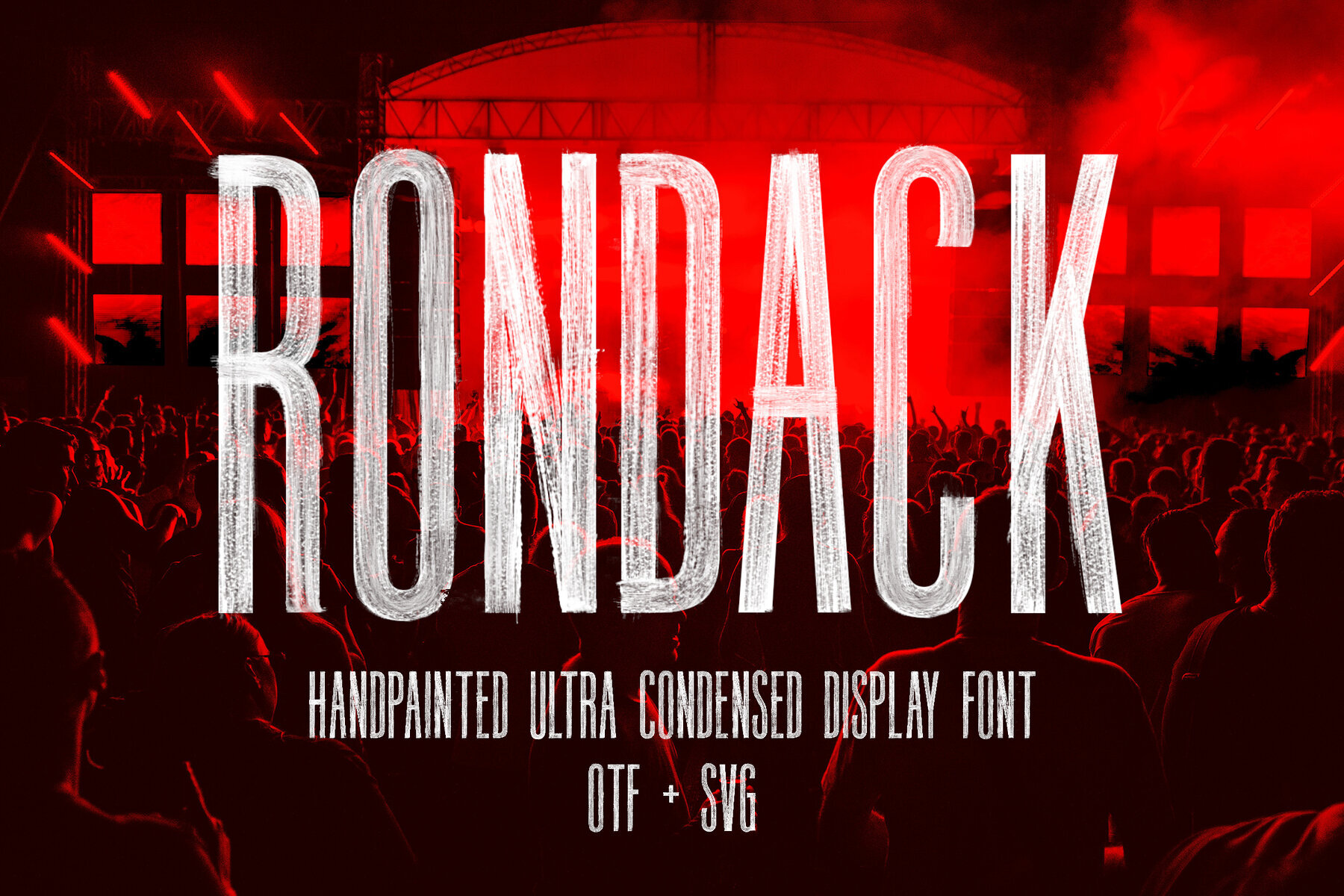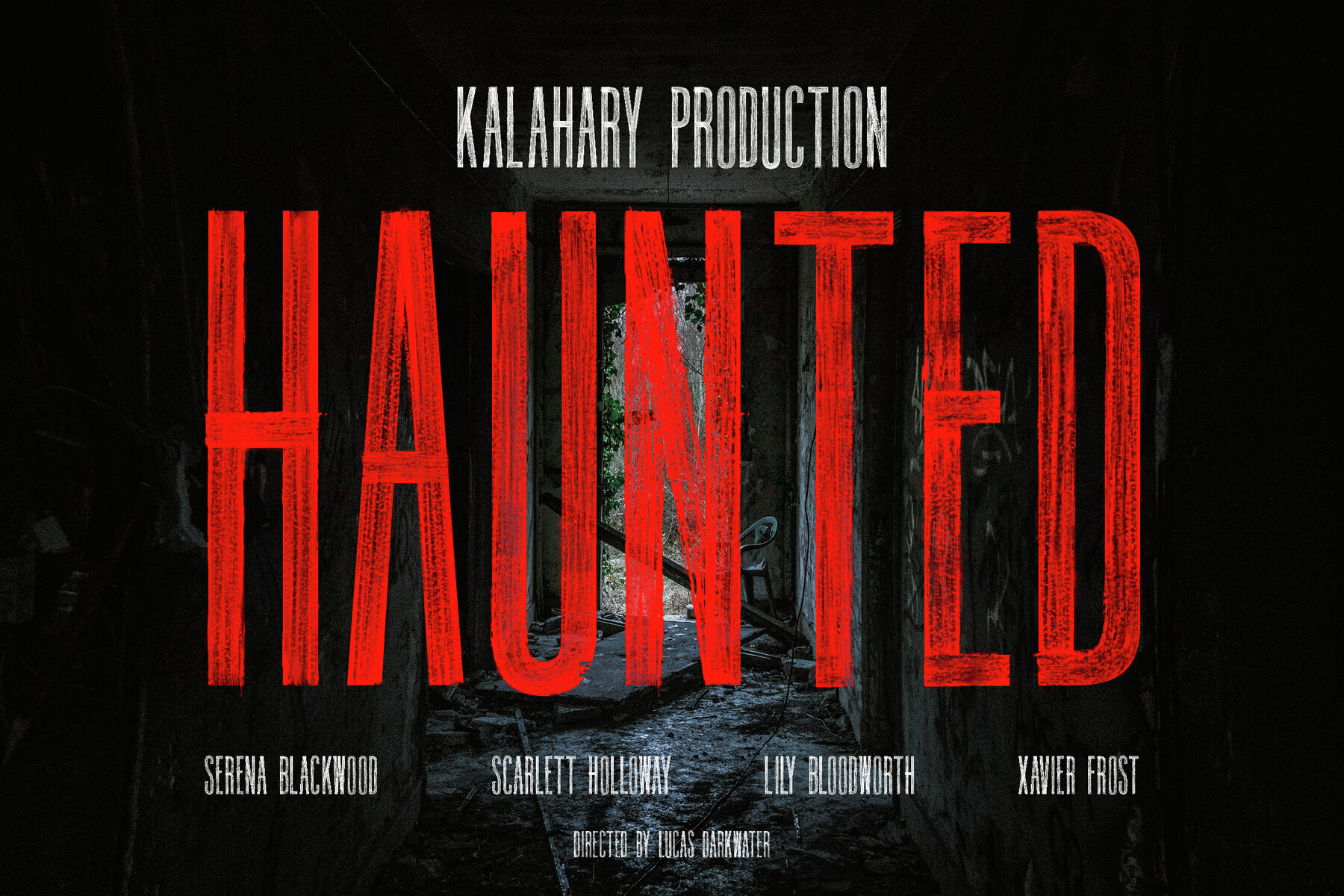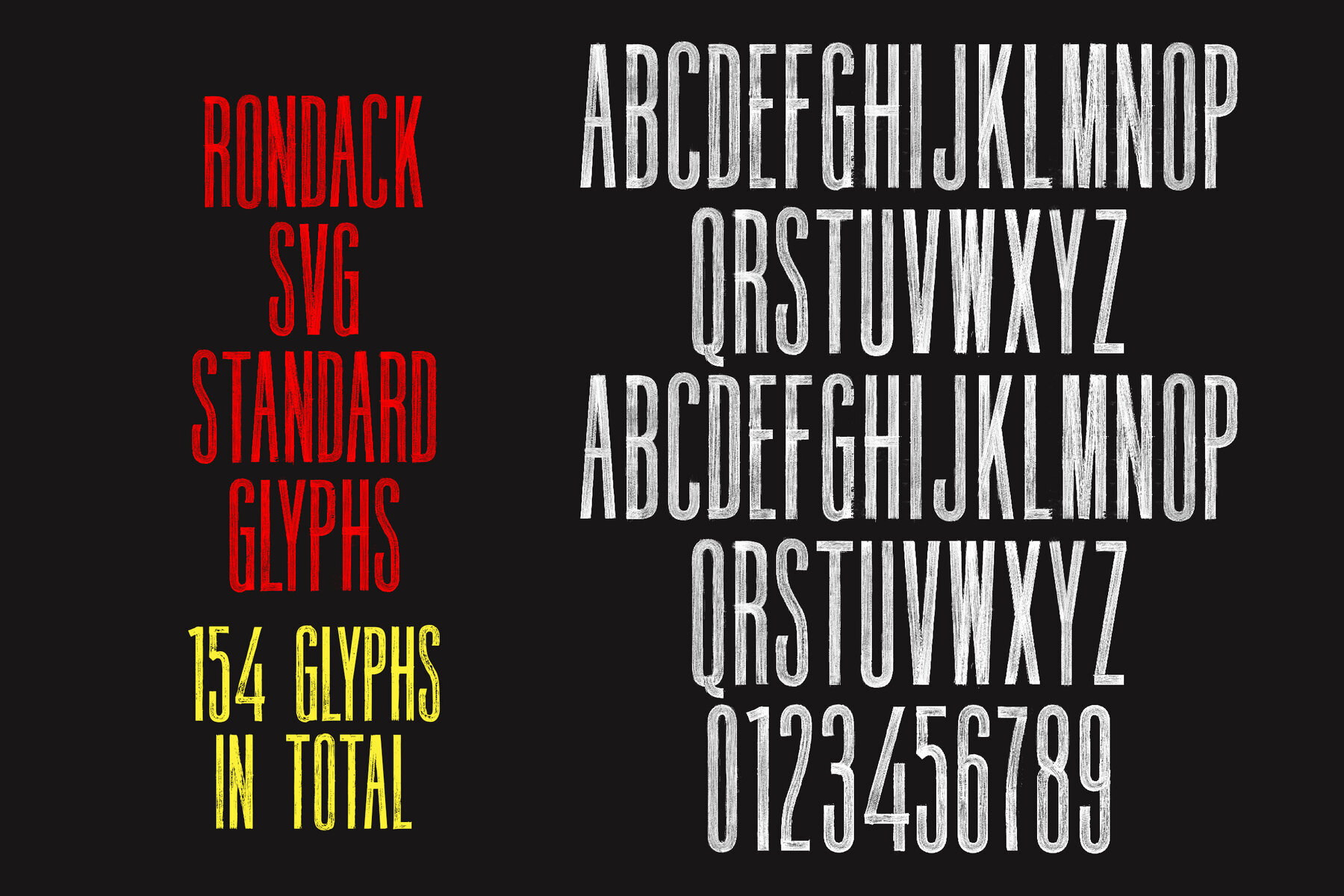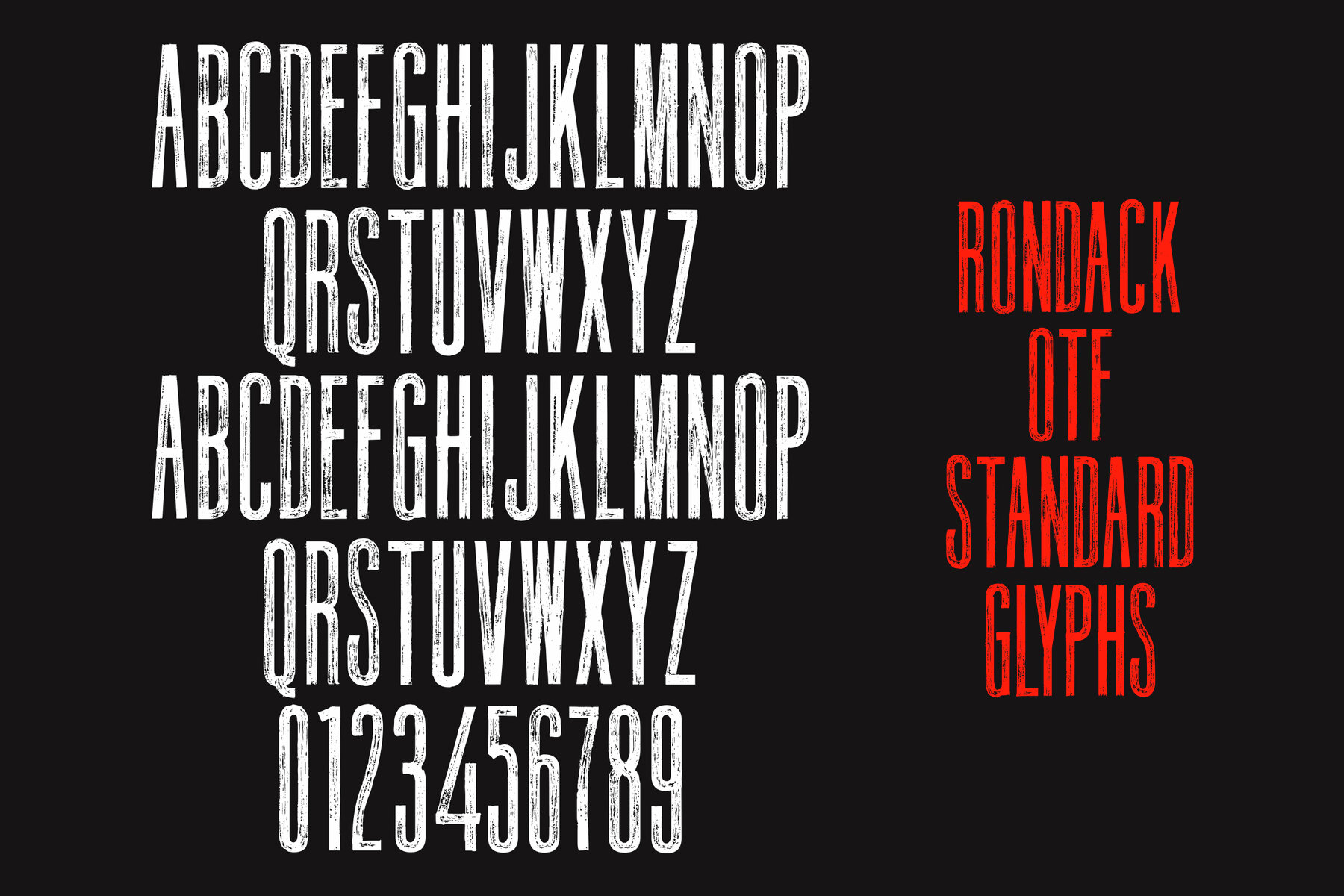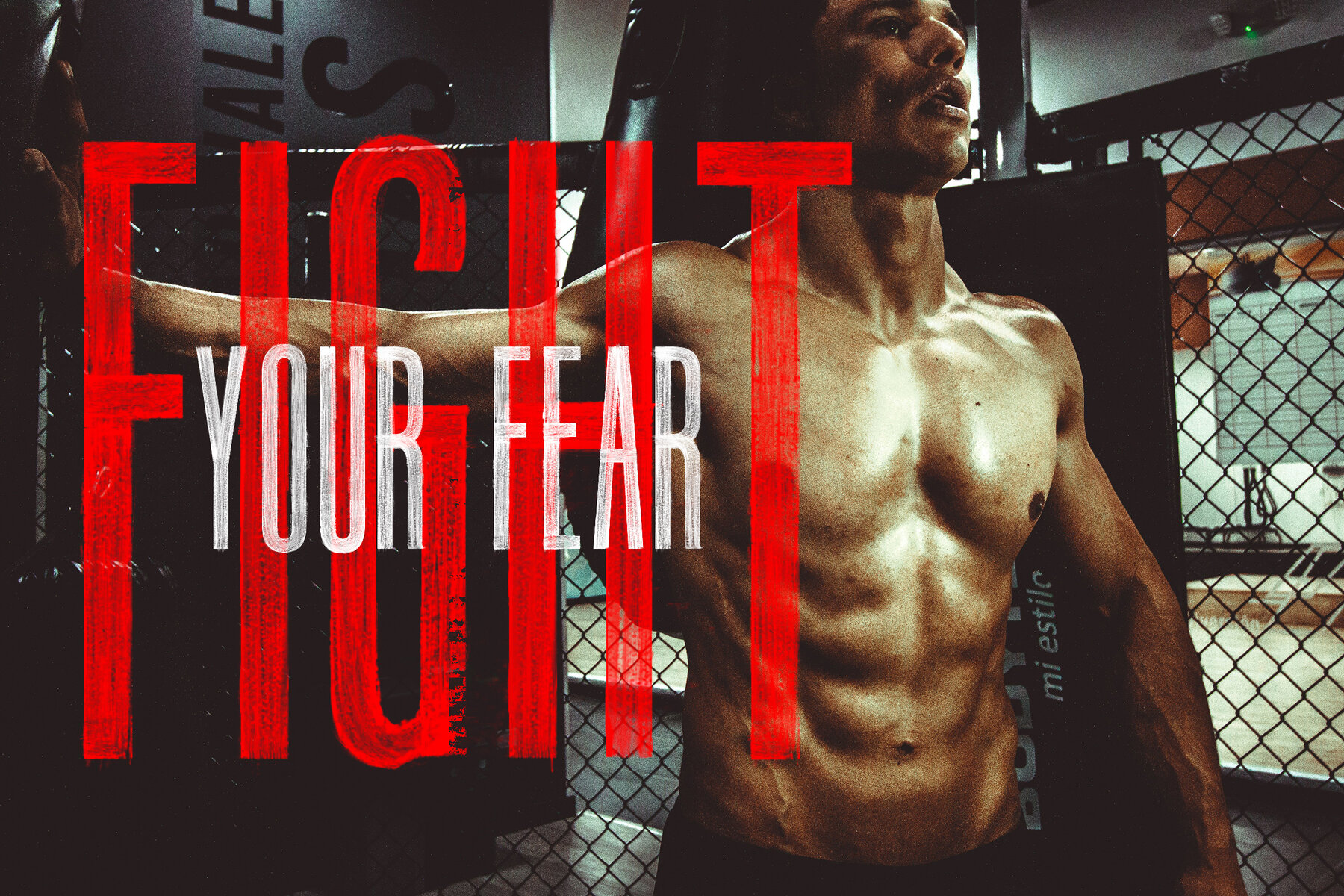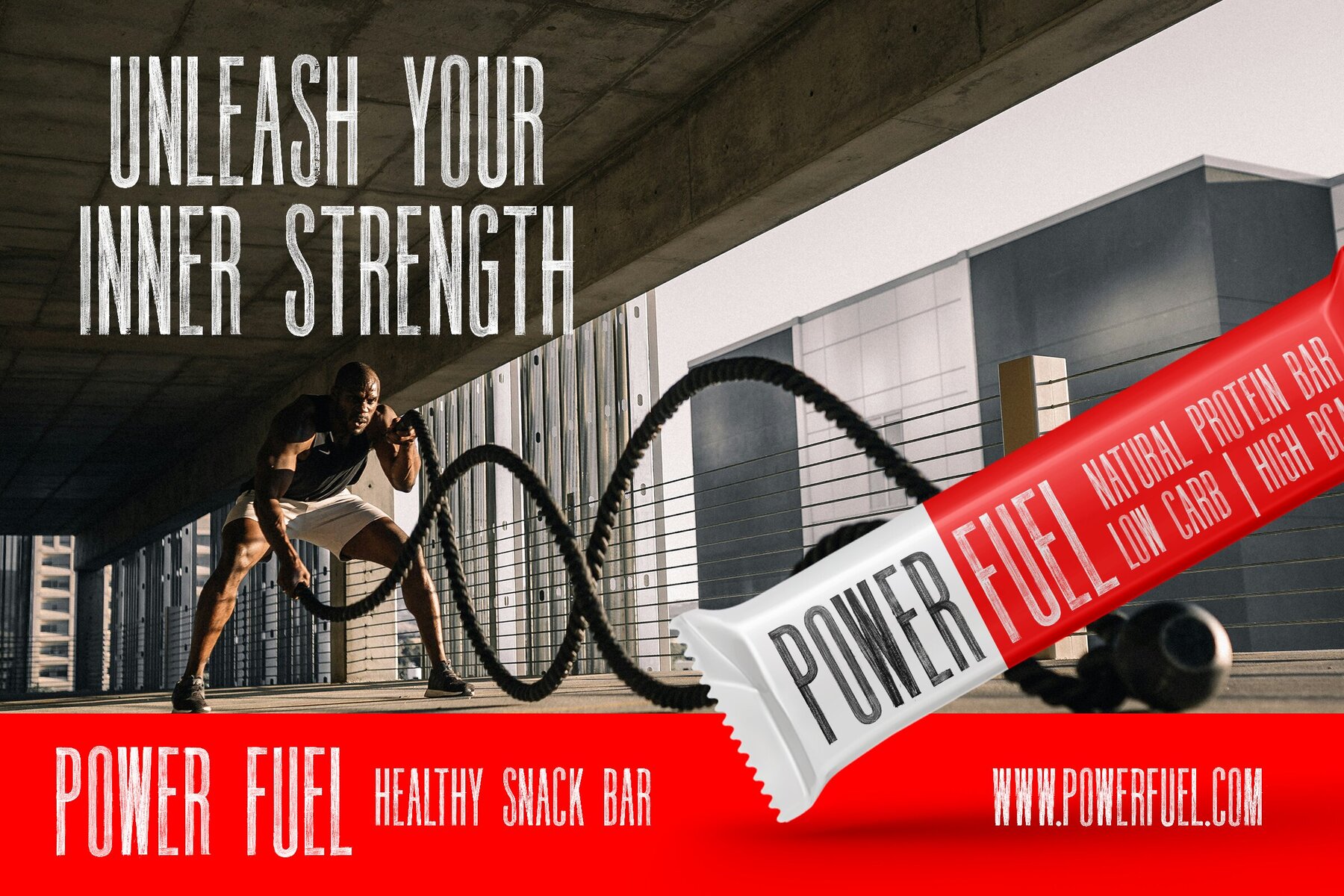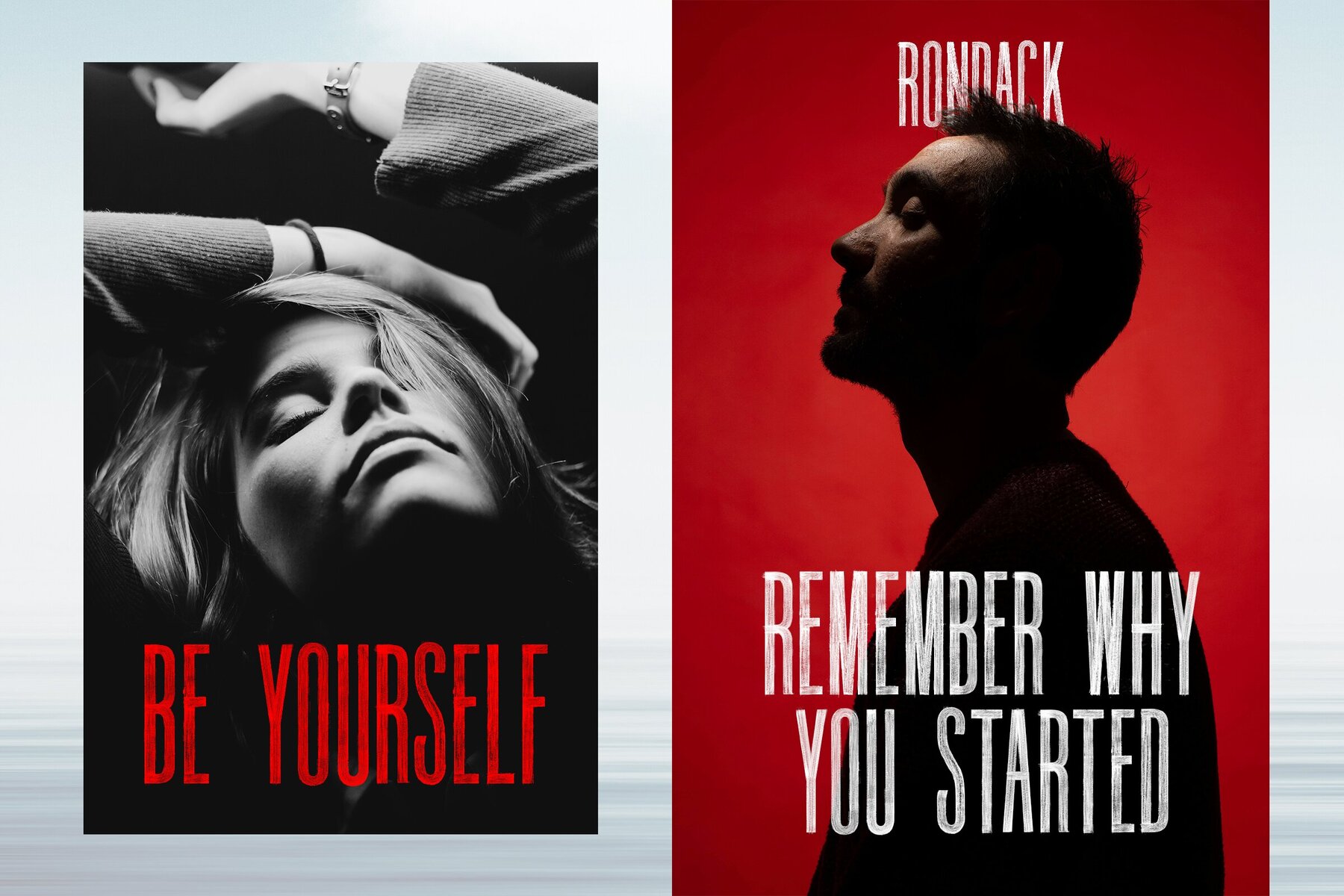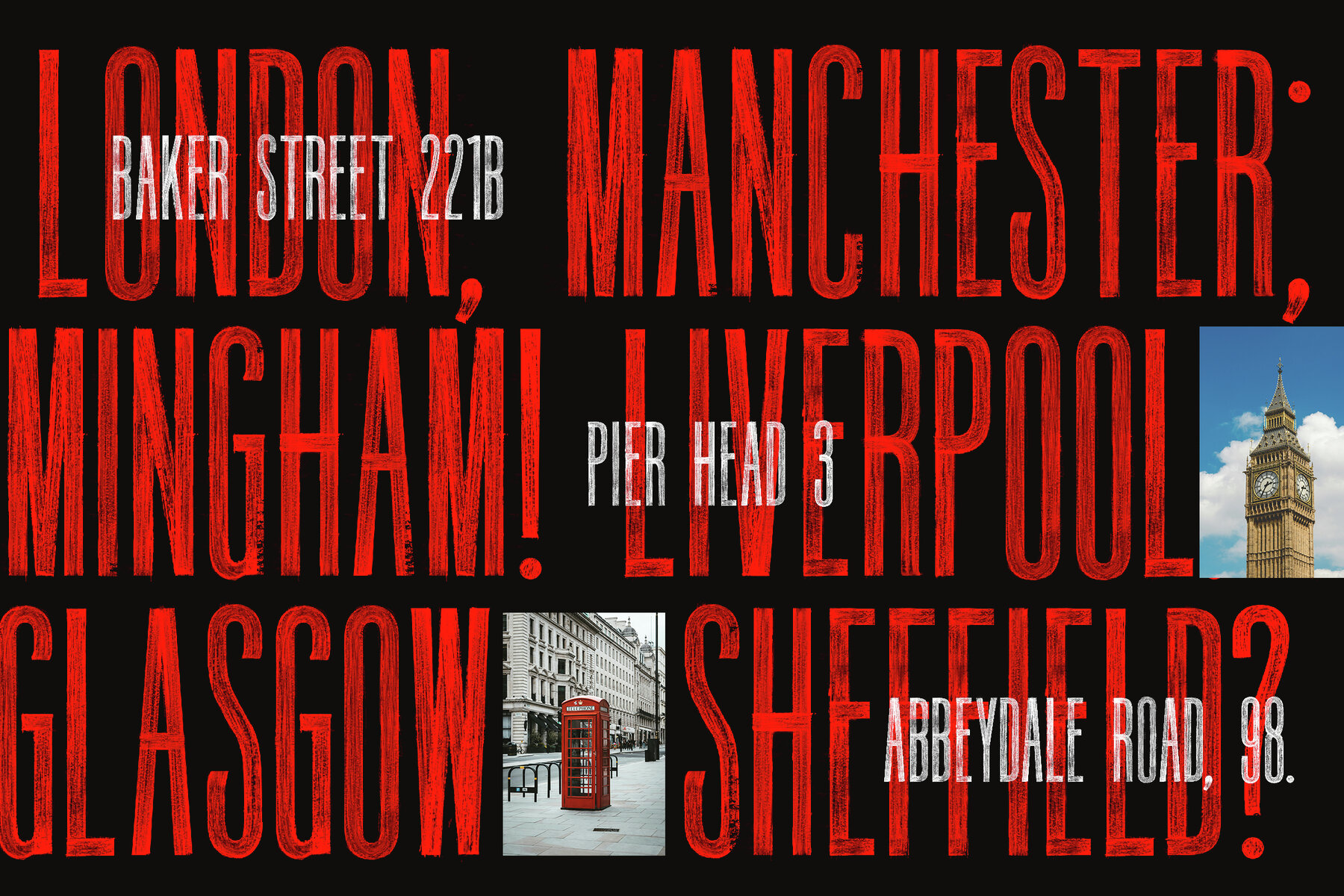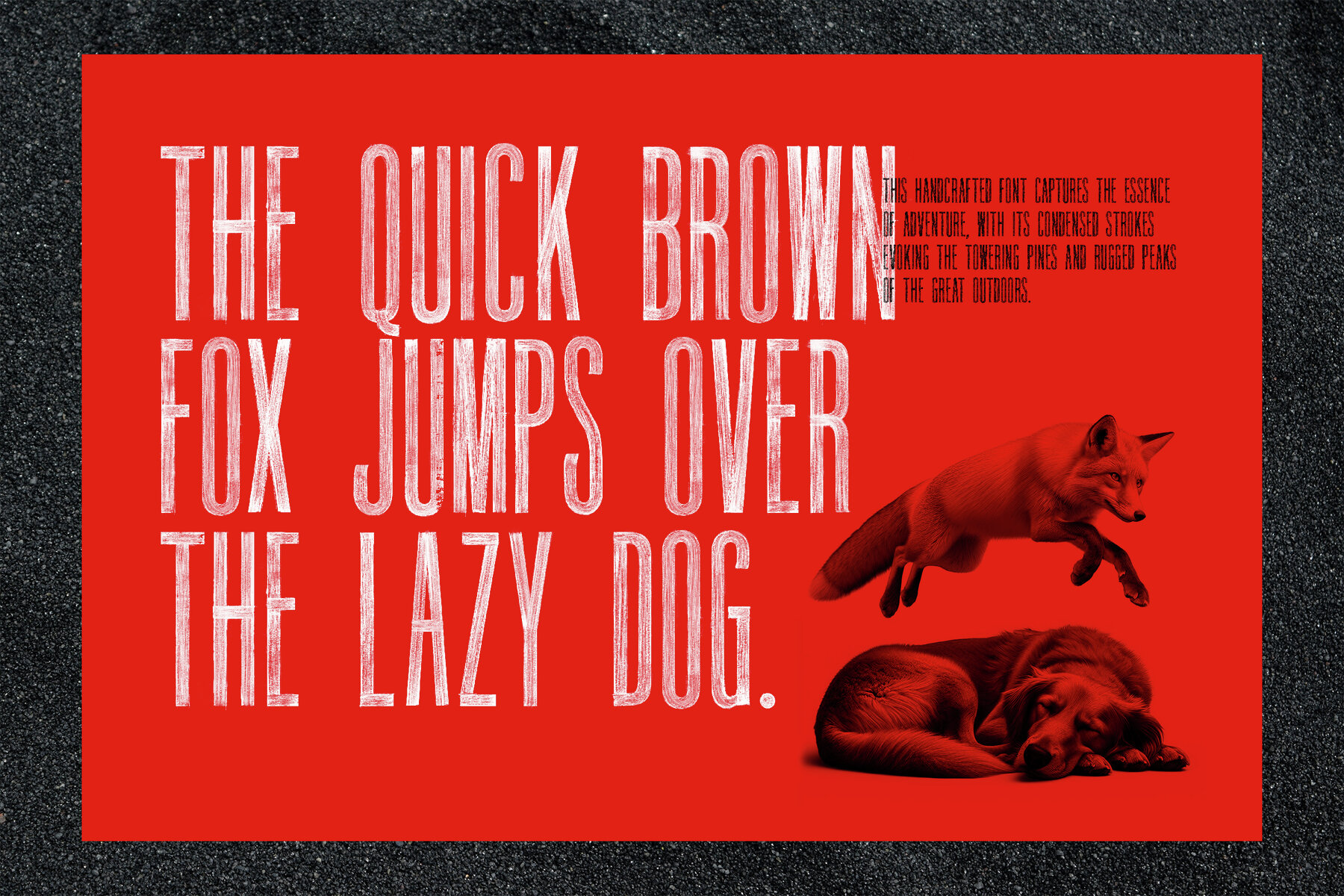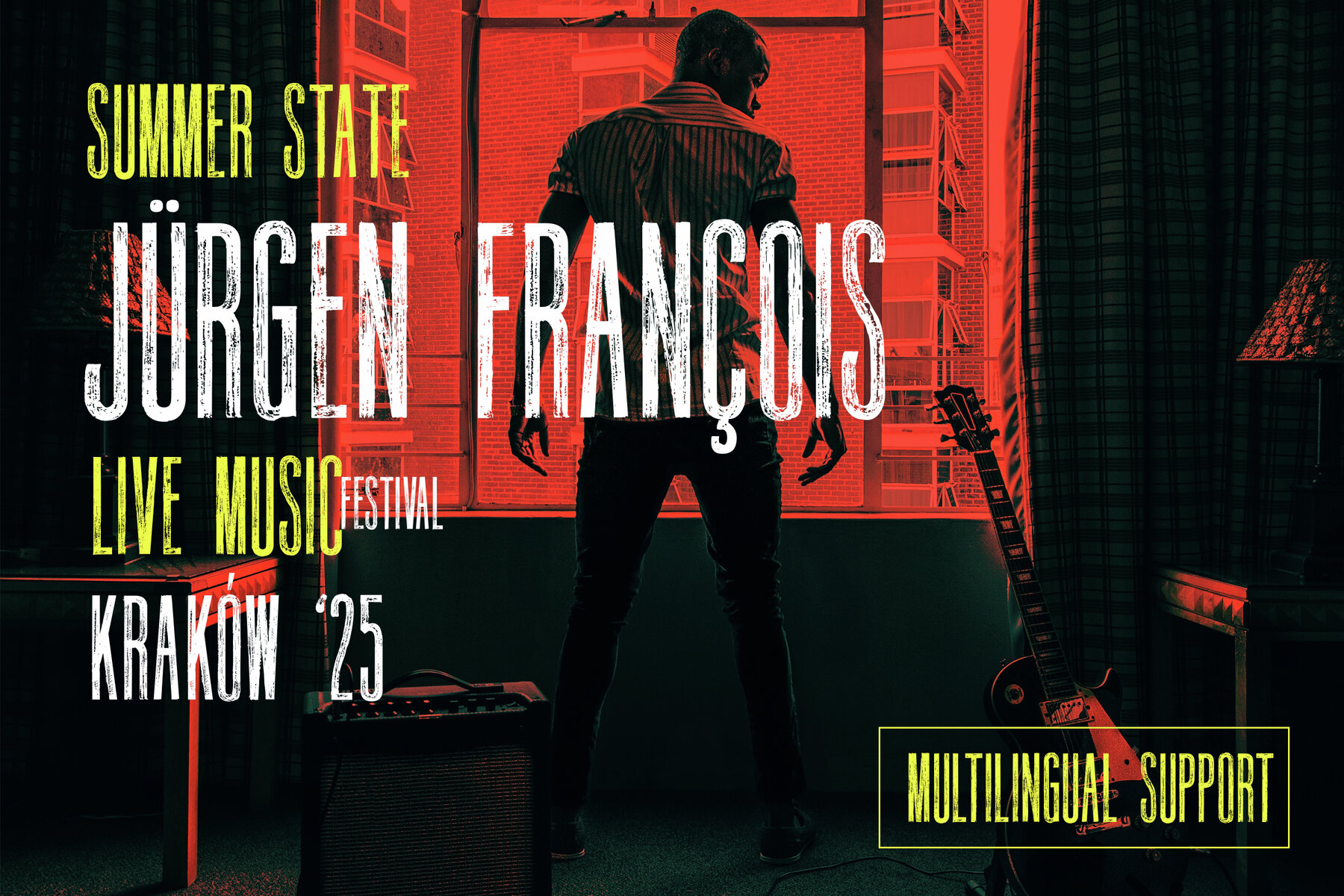
Introducing Rondack, a stylish, condensed, hand-painted font by Colin Whitlock. This sans serif font is exceptionally tall, making it perfect for display in posters, packaging, advertisements, and movie titles. Enjoy the natural texture and transparency of the SVG version for an eye-catching statement. Rondack also includes multilingual features.